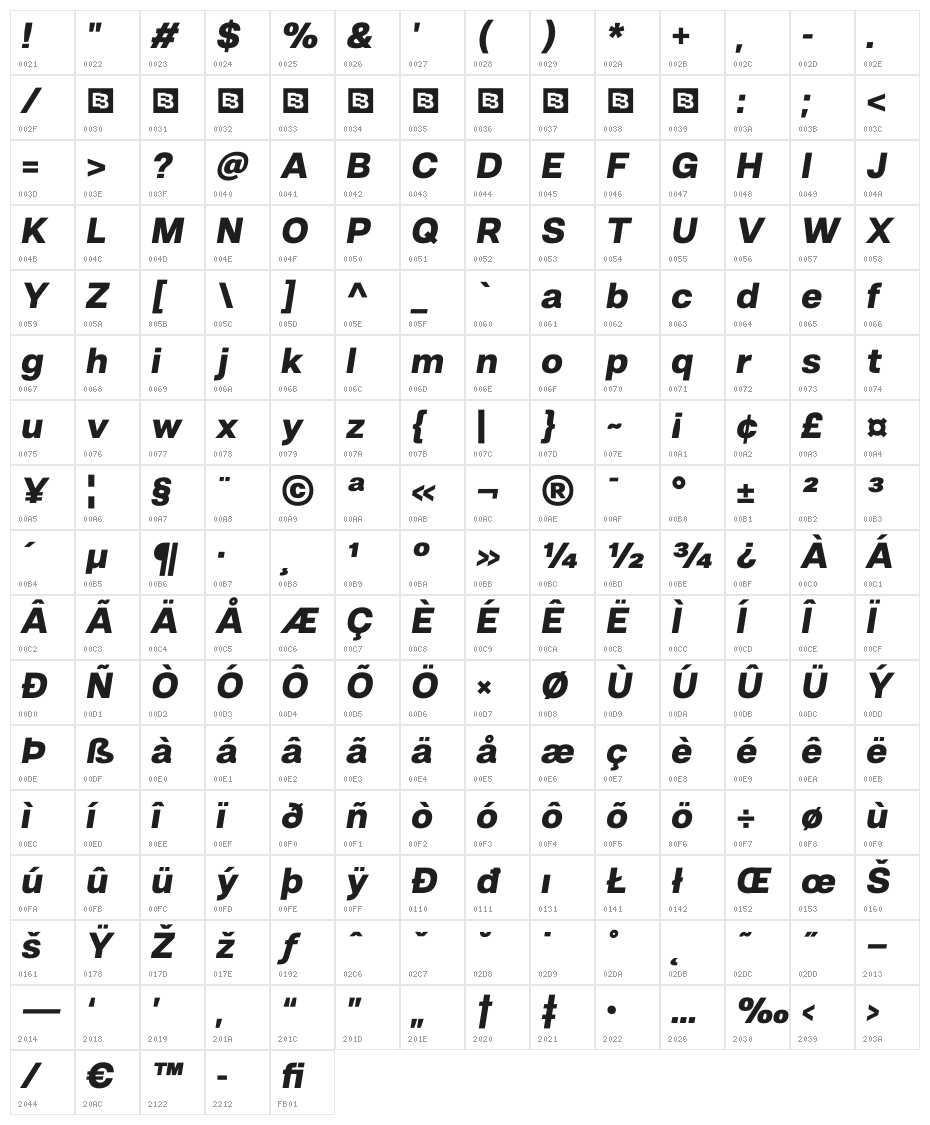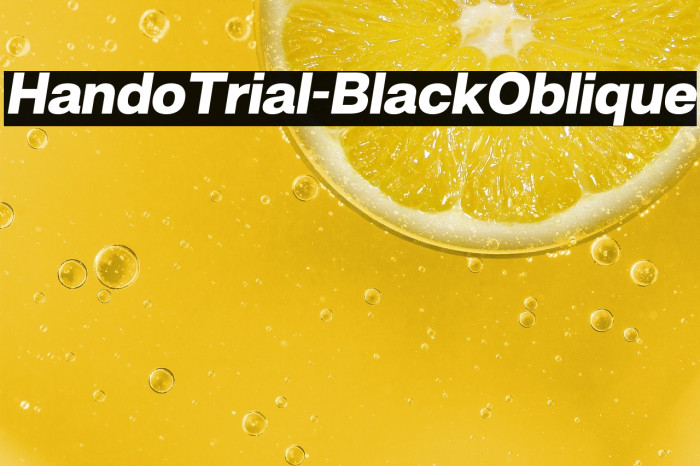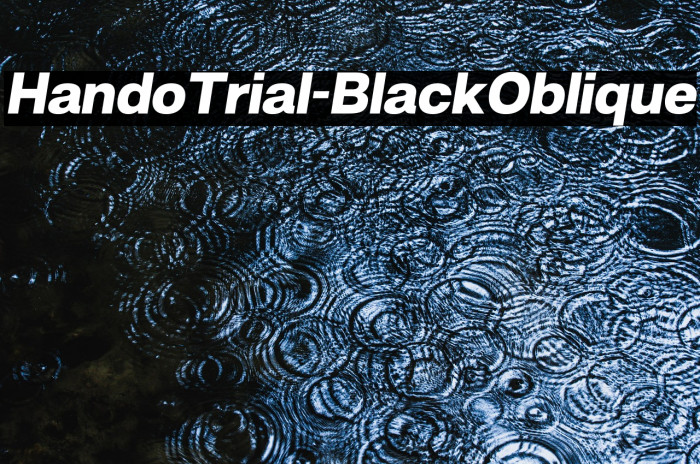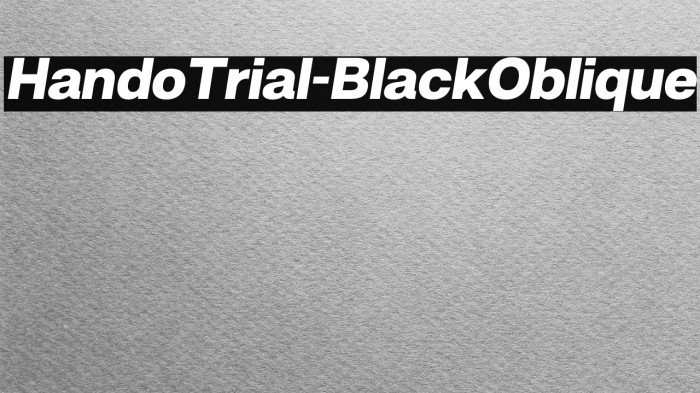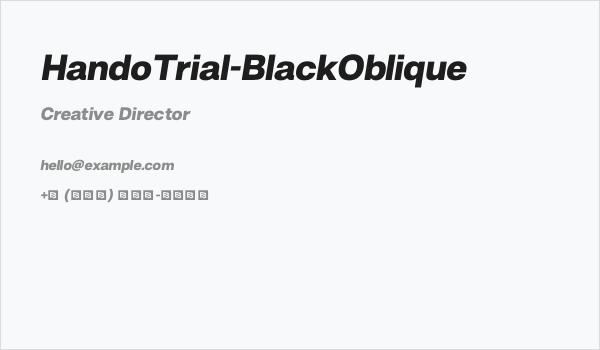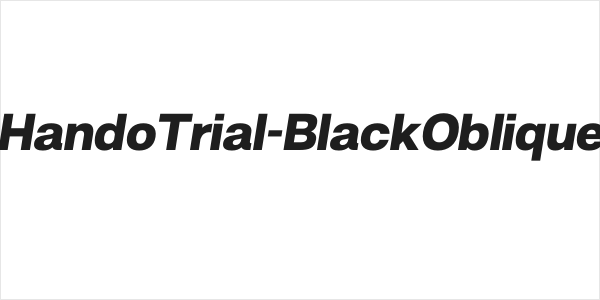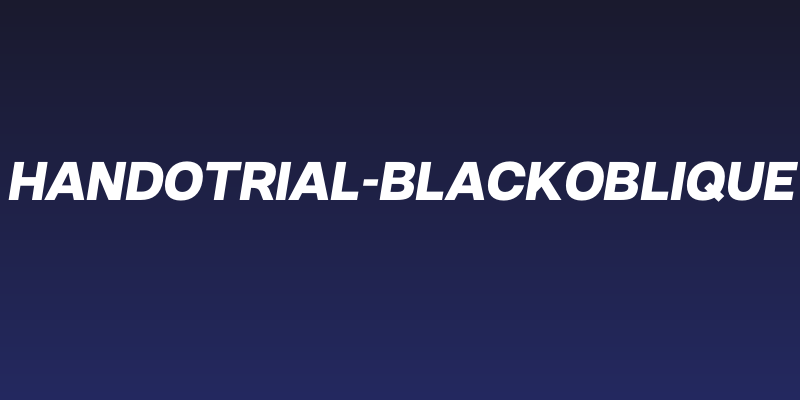
HandoTrial-BlackOblique Font
HandoTrial-BlackOblique Description
This font features a bold and oblique style, characterized by strong, thick strokes that convey a sense of power and modernity. The letters are slightly slanted, adding a dynamic and forward-moving appearance. The uppercase and lowercase letters maintain a consistent weight, ensuring readability while emphasizing a robust presence. The numerals and special characters are designed to match the boldness of the alphabet, providing a cohesive look across all characters. This font is ideal for making a strong visual impact.
| Use Case | Headlines, Logos, Advertising |
| Proposed Projects | Ideal for headlines, branding, advertising, and any project requiring a strong visual impact. |